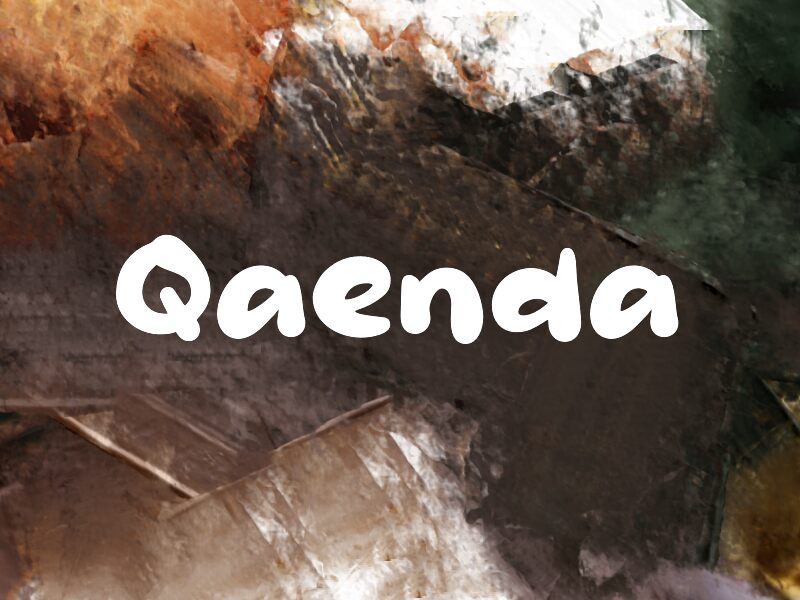
Qaenda font, crafted by wep, is a free playful cartoon typeface. This contemporary and approachable type design is perfectly smooth and rounded. Along with creating a naturally casual feel, its friendly appearance makes for a great companion for fun relaxed projects. Fun, lively, and energetic are some of the words that can be used to describe this cute font and its special form.
This informal vibe makes it a nice fit for relaxed branding, T-shirts, mugs, inspirational quotes, social media posts, cards, posts, standup posts, covers, packaging designs, posters, and headings. Any other purpose that needs to capture a cartoon-like look would benefit from Qaenda’s use.
Qaenda is a modern and versatile free font designed to elevate your creative projects. With its clean lines and contemporary appeal, this font is perfect for both digital and print applications. Whether you're working on a logo, poster, or website, Qaenda provides a stylish touch that enhances visual communication.
Embrace the artistic potential of Qaenda and incorporate it into your next design endeavor for stunning outcomes.